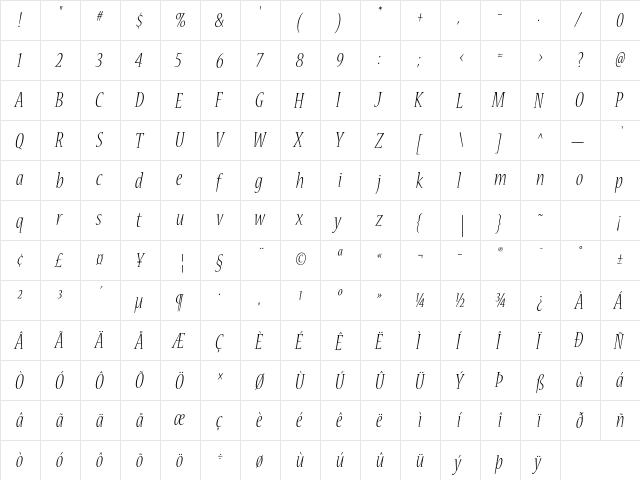
Nueva Std Light Condensed Italic Font Preview
| Designer | Carol Twombly |
Design Context for Nueva Std Typeface
Nueva Std is a composed and adaptable typeface that performs quietly and consistently across a wide range of design contexts. Its italic angle brings a sense of urgency and motion to the letterforms. The delicate stroke weight brings airiness and refinement to layouts. The condensed width makes it efficient for tight spaces without sacrificing legibility.
Pro Tip: Use Nueva Std for emphasis, pull quotes, and subheadings where its slanted energy can add rhythm to the layout.